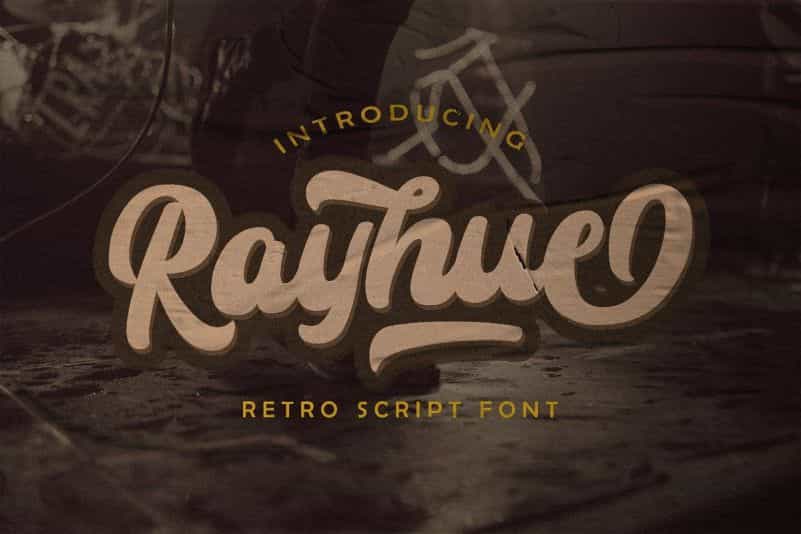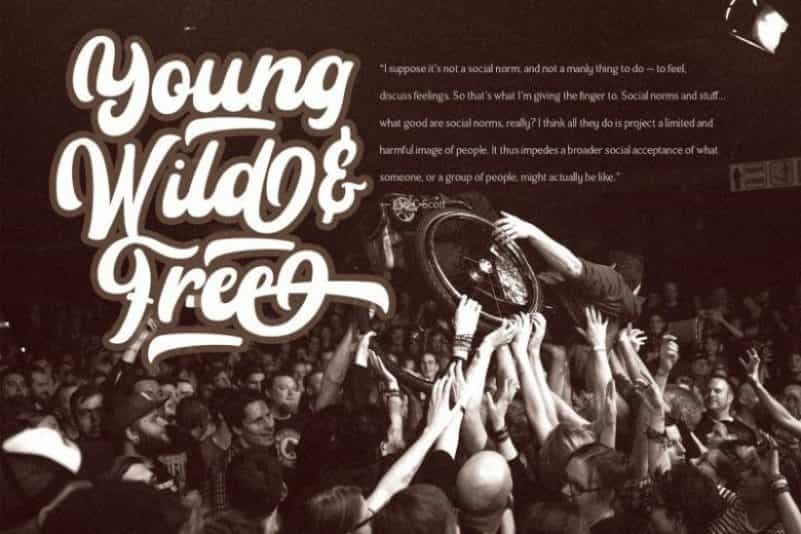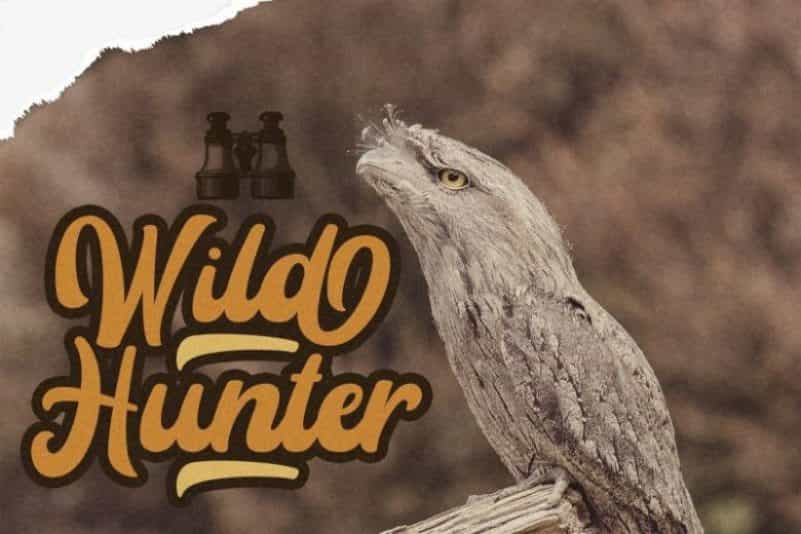
Rayhue is a font of the Retro bold script type with Vintage style. This is further enhanced by the unique design taste which is combined with the classic retro style of the 80s, trendy, vintage and sporty.